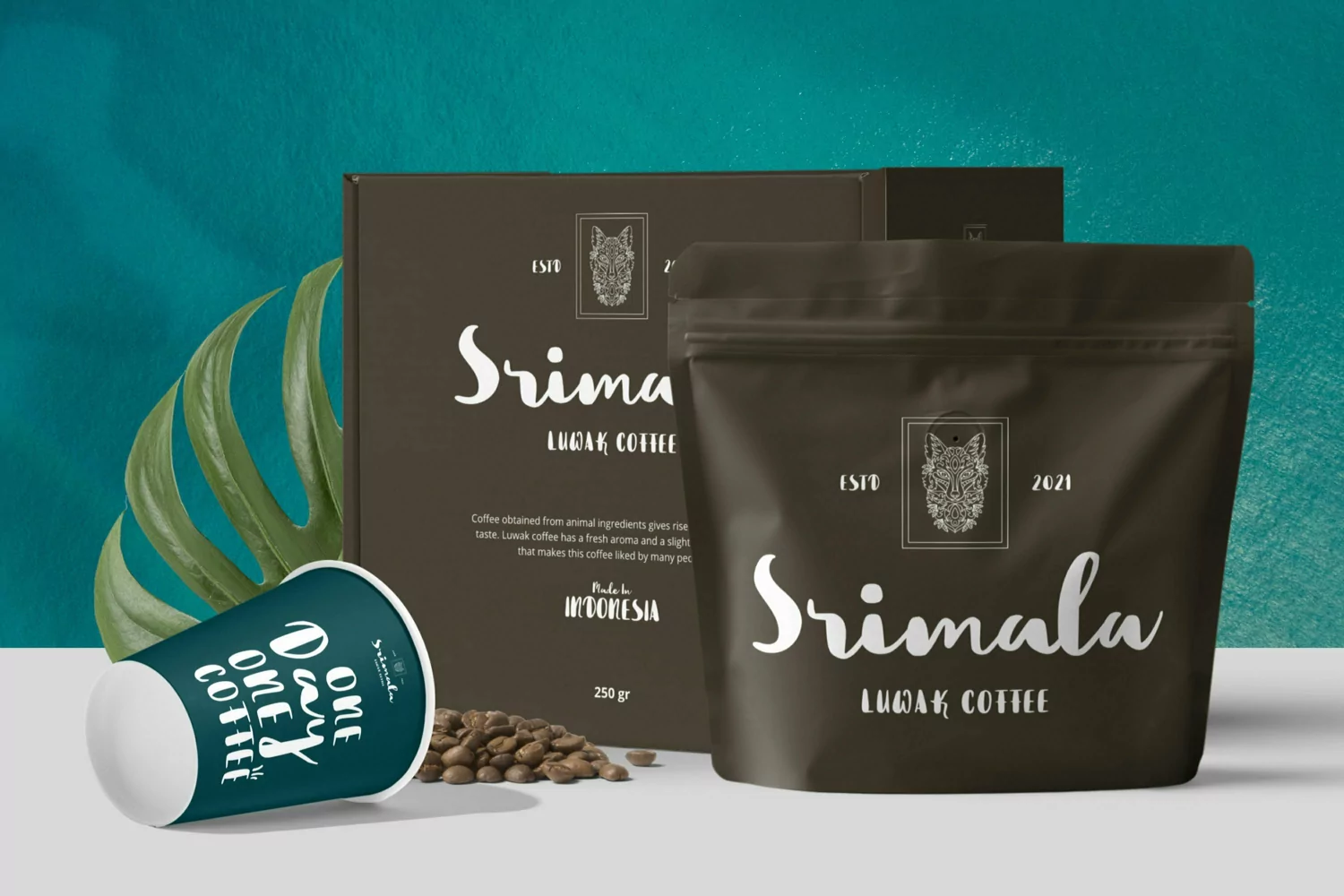
Web Font suitable for logotype, brand, packaging, quotes, music poster, t-shirt, cover book and more custom design. The features uppercase, lowercase, numeral, punctuation & symbol, multilingual support.
ElectionisRegular